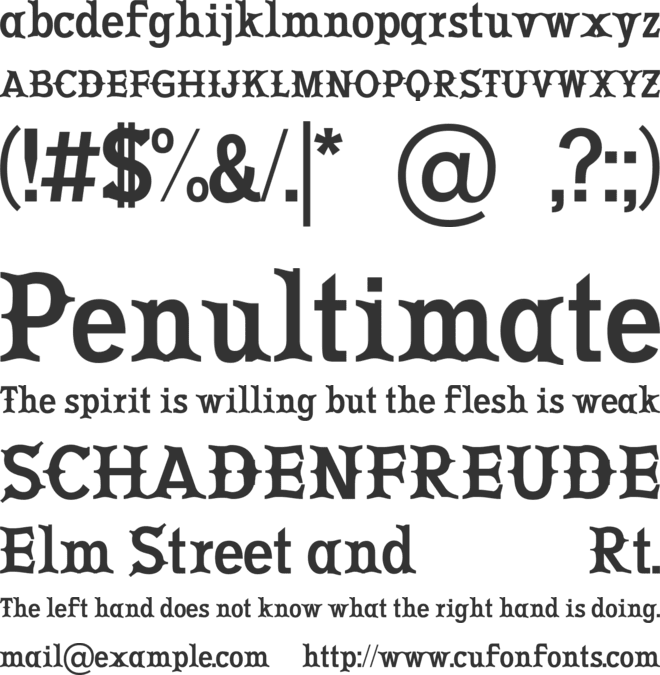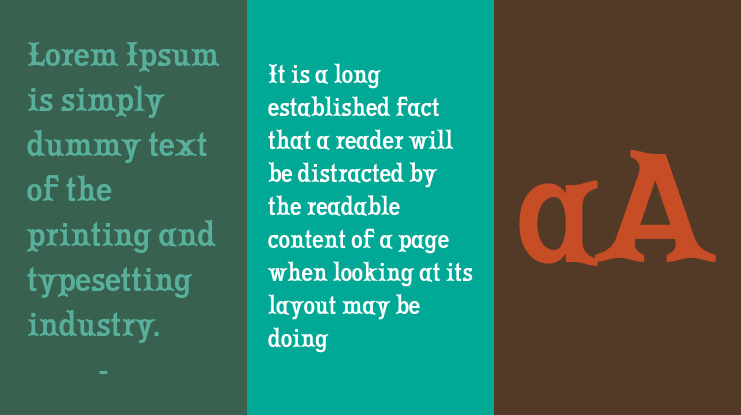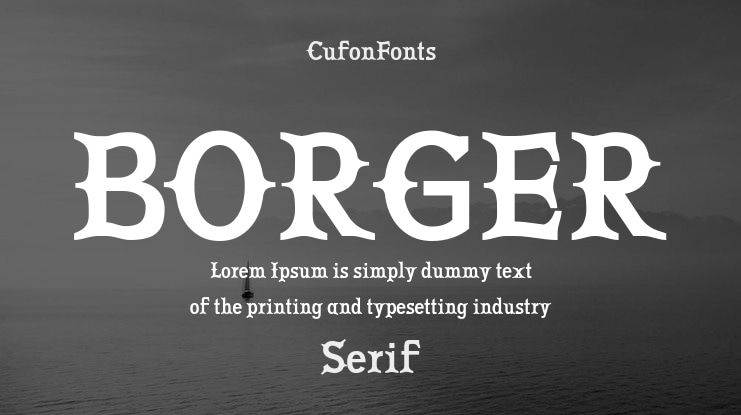
BORGER Font Family
Borger is an elegant blackletter serif with multilingual support—ideal for vintage branding, premium packaging, and dramatic editorial design.